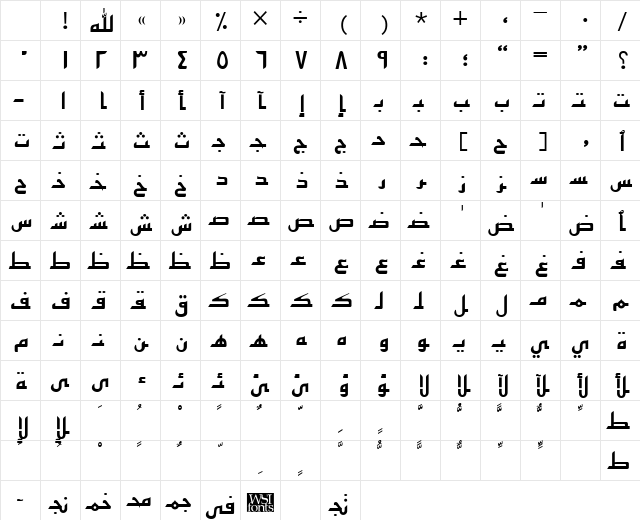
Complete ArabicSans Bold glyph index. Displaying only characters natively supported by ArabicSans Bold font.
ArabicSans is a composed and adaptable typeface that performs quietly and consistently across a wide range of design contexts. Its bold stroke weight gives it real presence on the page.